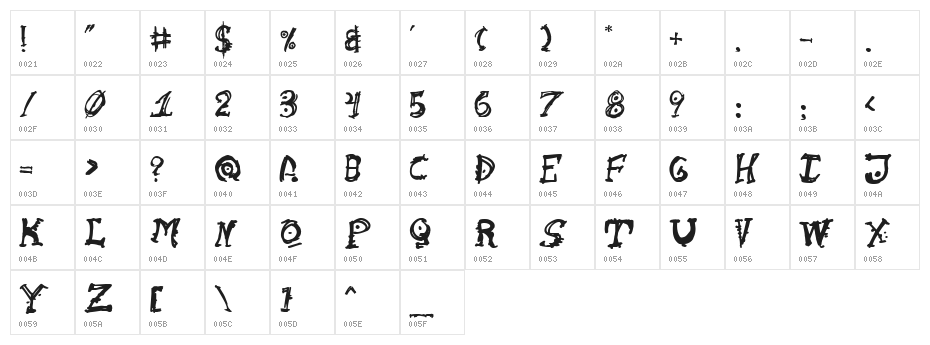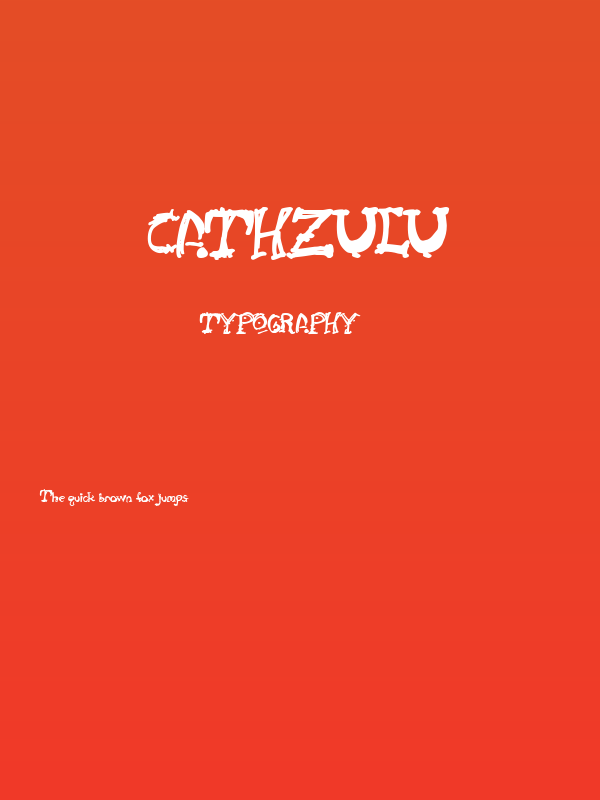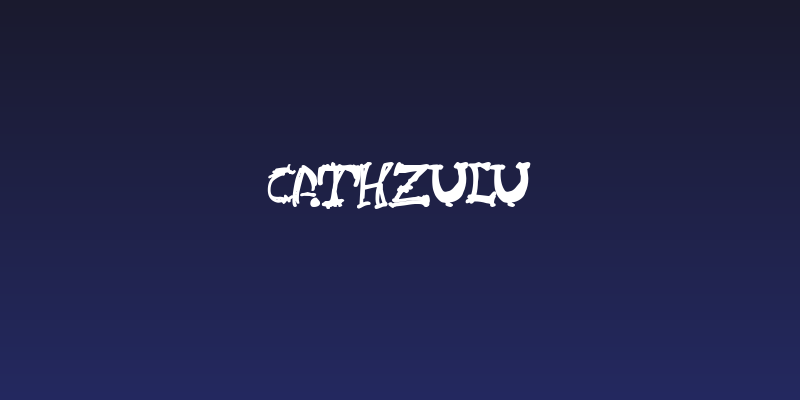
Cathzulu Font
Cathzulu Description
This font features a highly decorative and chaotic style, reminiscent of hand-drawn or graffiti art. The characters are bold and irregular, with exaggerated curves and strokes that give them a dynamic and energetic appearance. The uppercase and lowercase letters maintain a consistent style, with a playful and artistic flair. Numbers and special characters follow the same aesthetic, making the font suitable for creative and unconventional designs. The overall look is unique and eye-catching, perfect for projects that require a bold statement.
| Use Case | Logos, Posters, Headlines |
| Proposed Projects | Ideal for album covers, posters, street art designs, and any project needing a bold, artistic touch. |